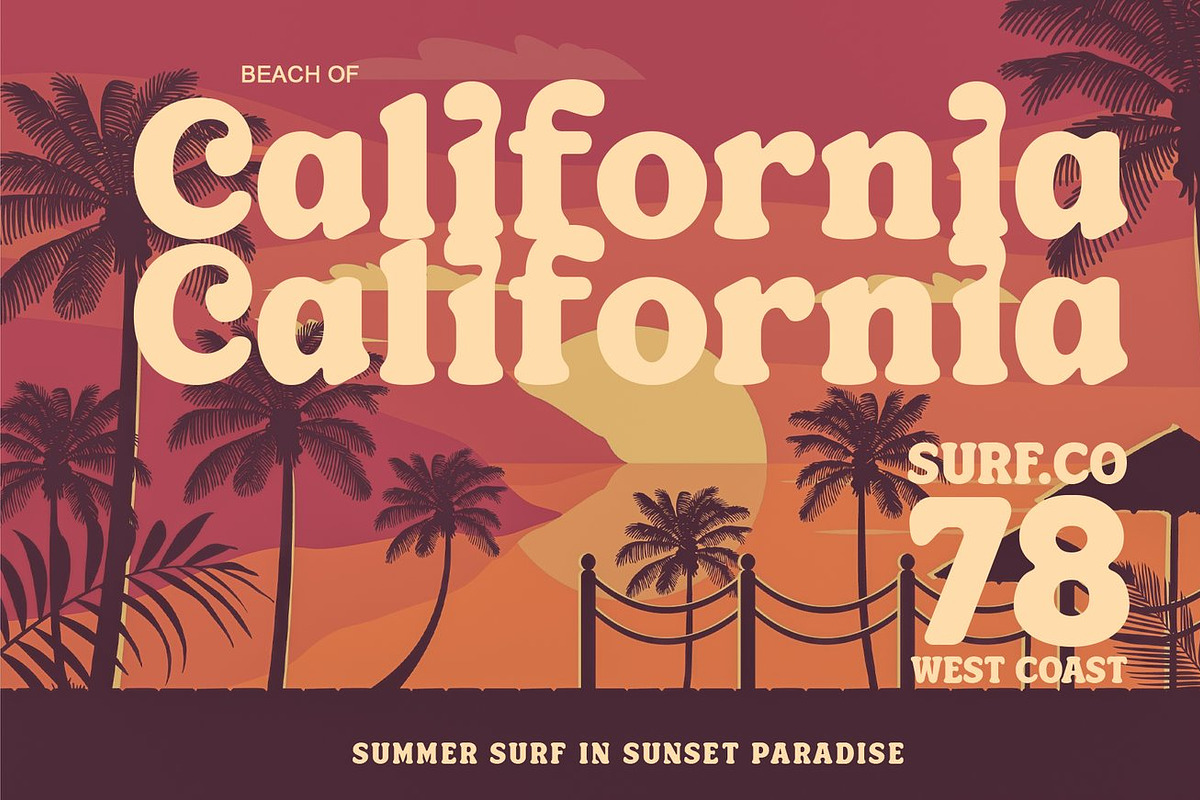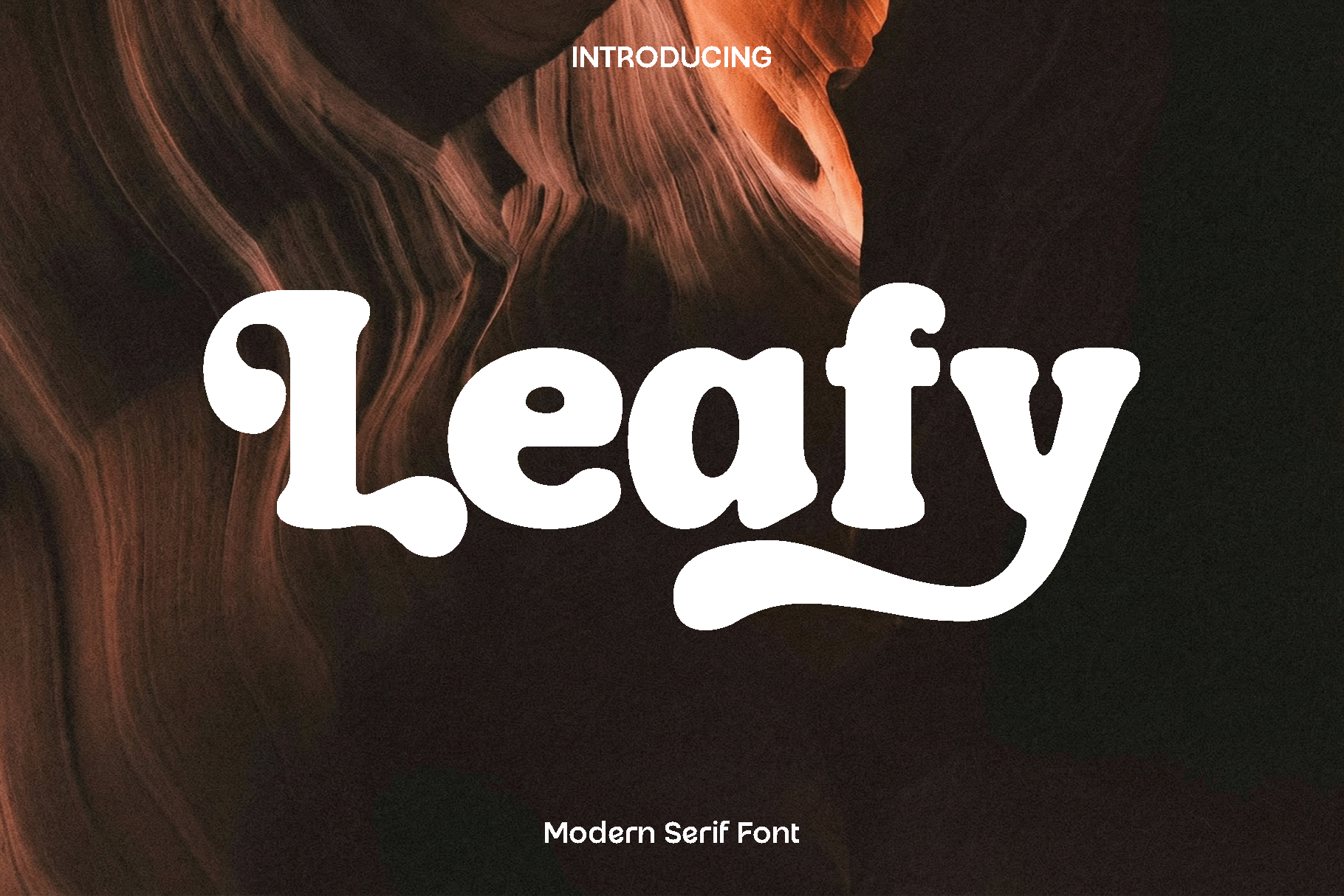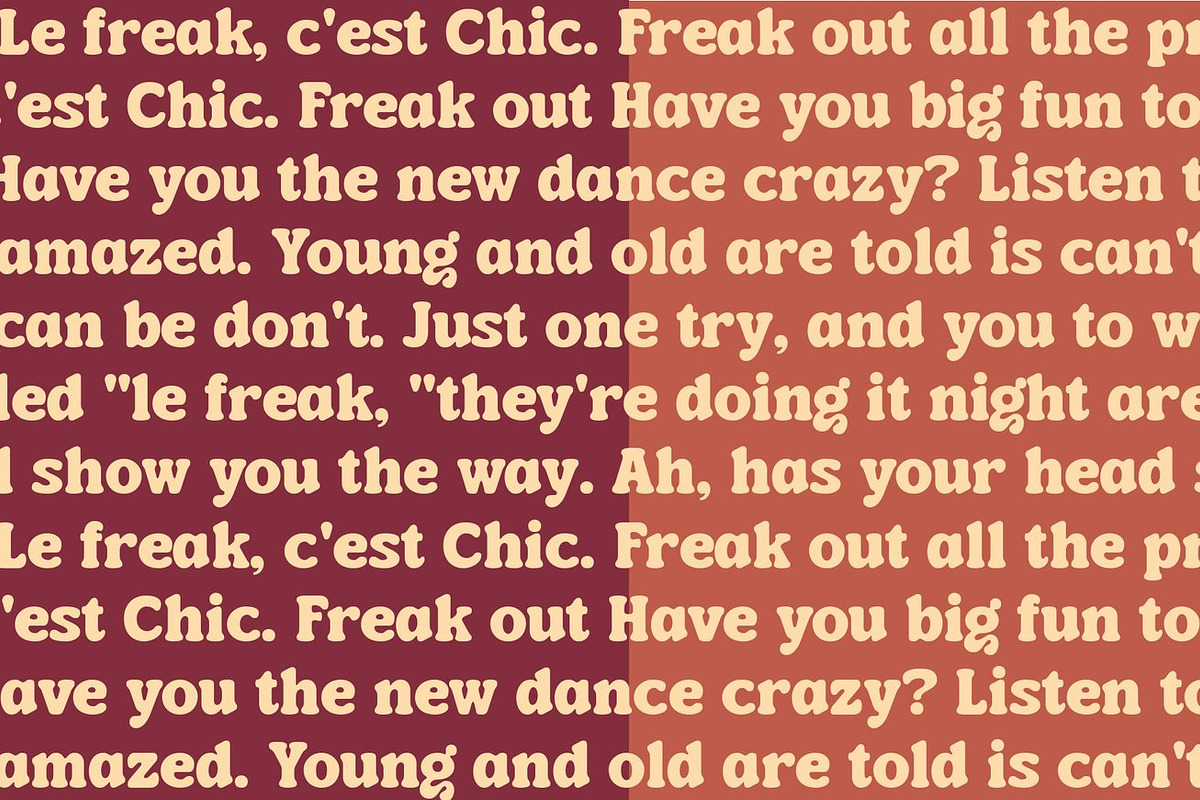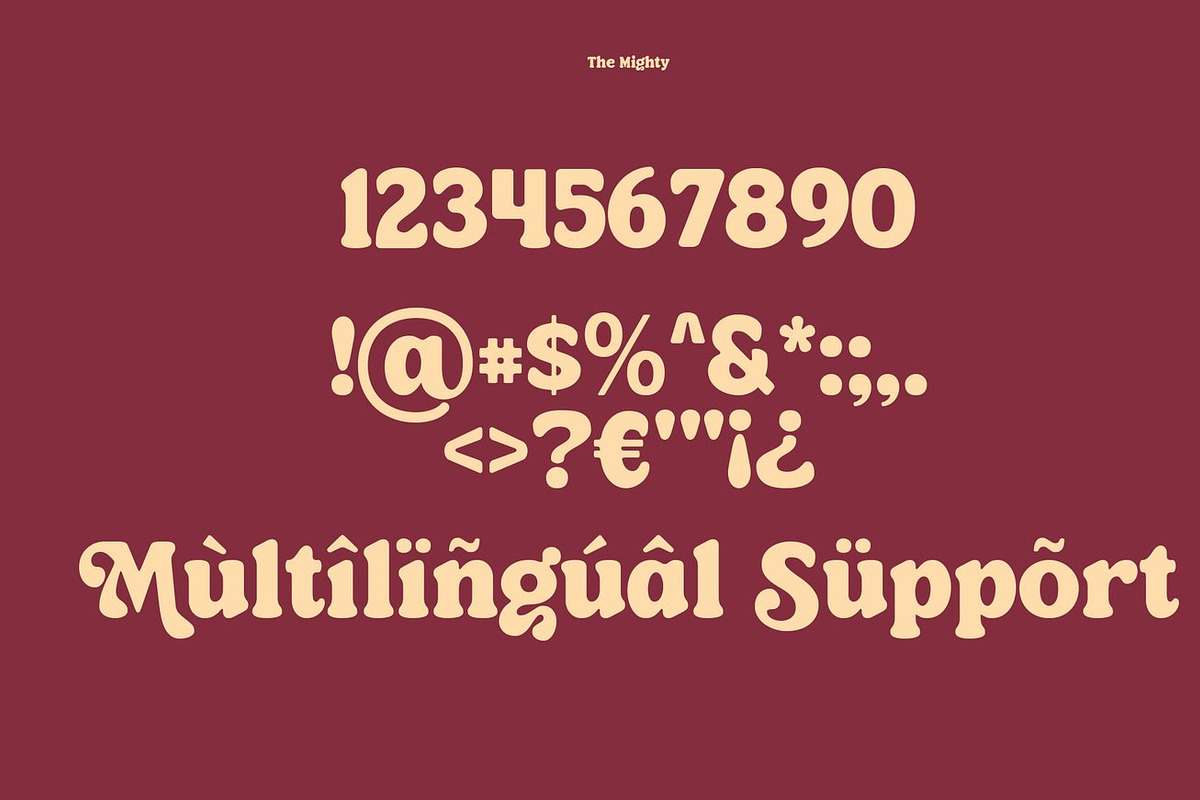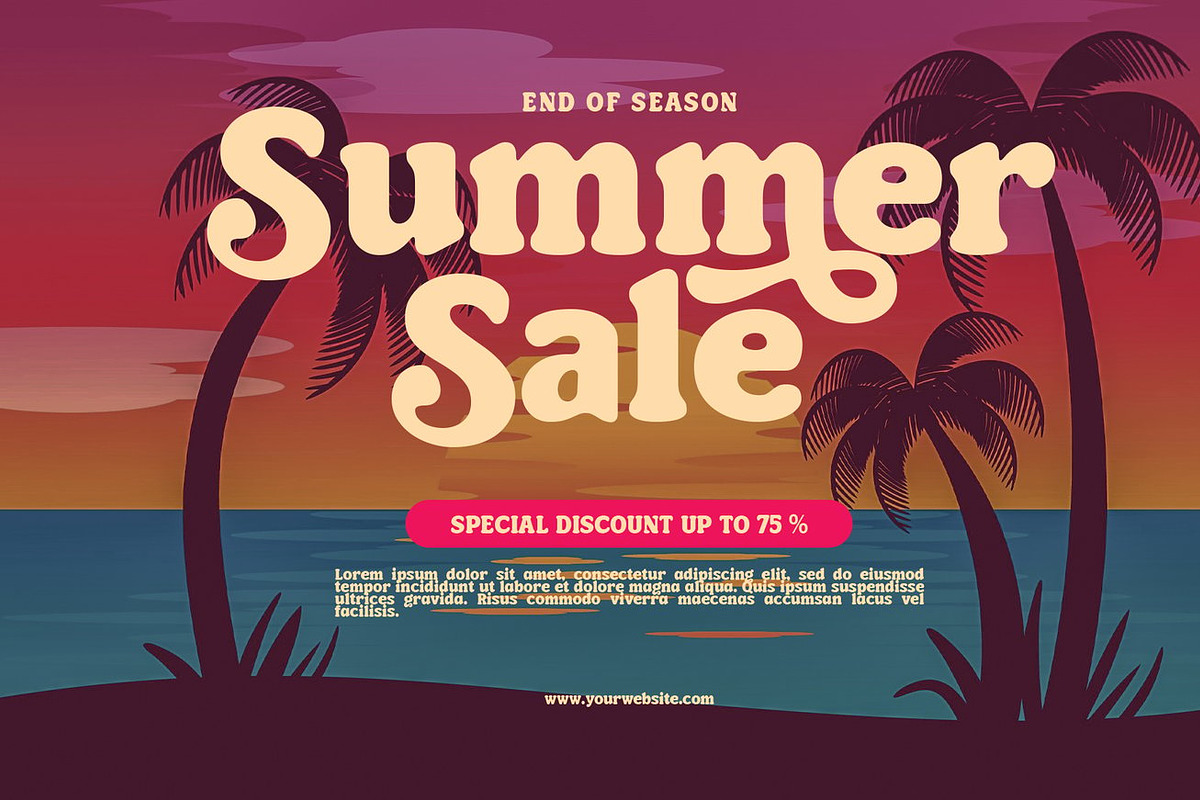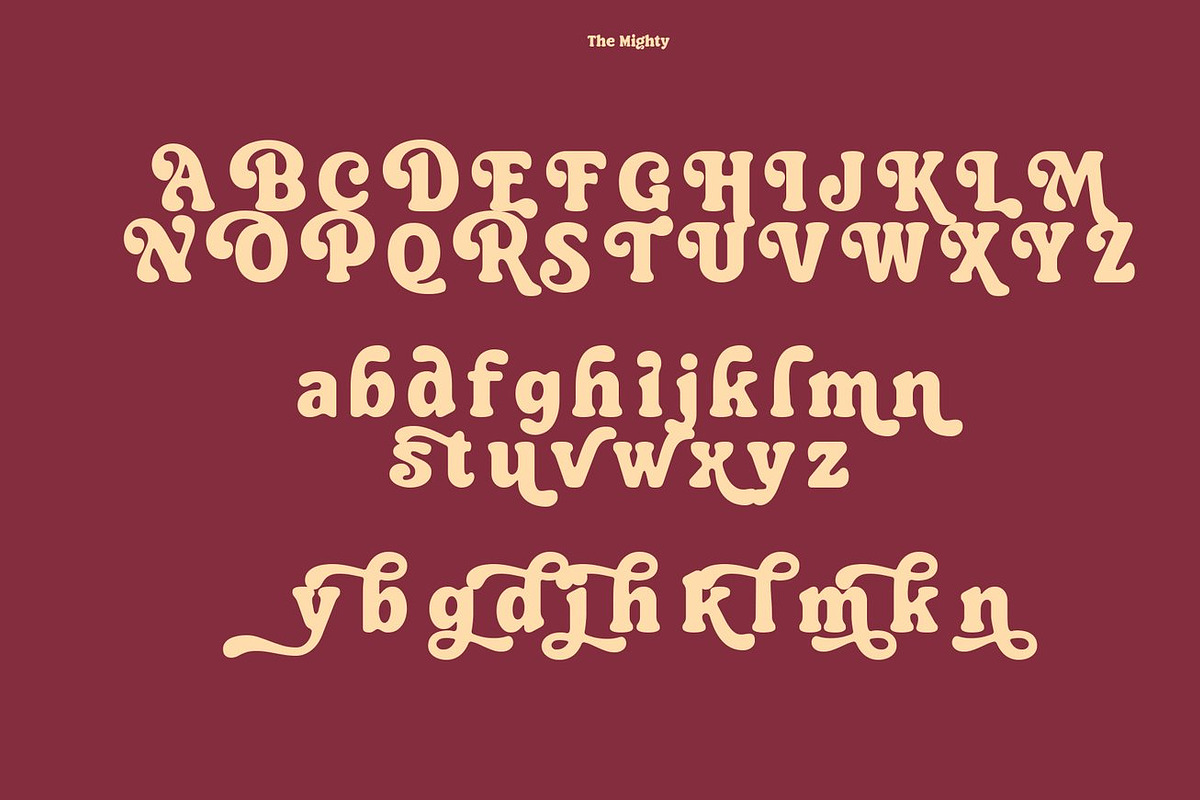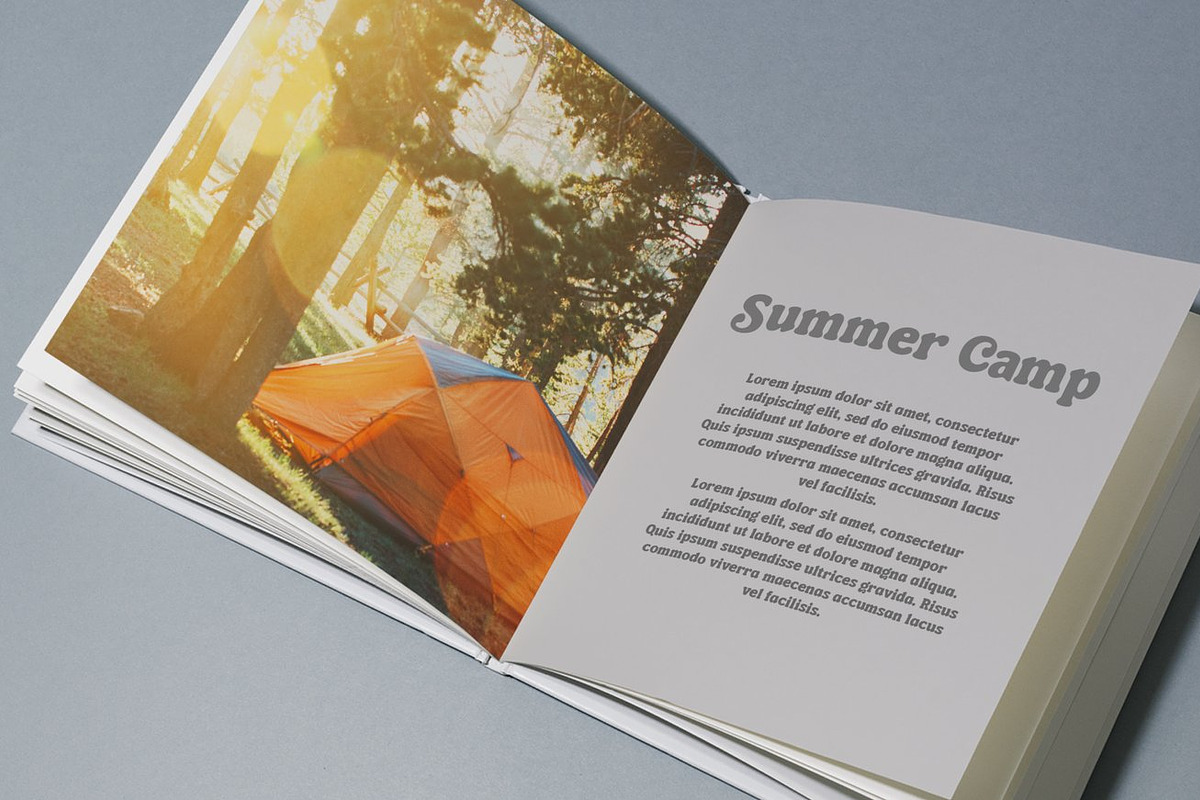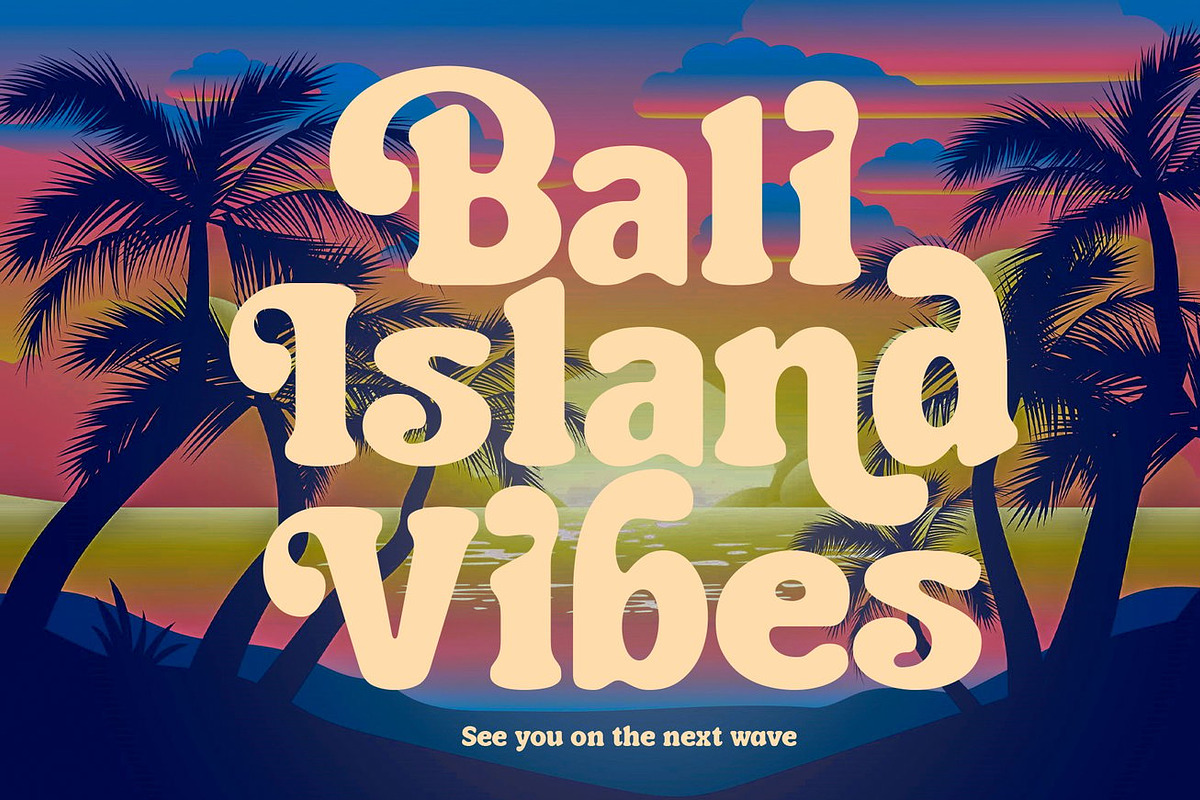
Leafy Serif Font
Leafy is a graceful display font inspired by the organic beauty of nature and the calm rhythm of flowing shapes. Designed with soft curves and balanced proportions, Leafy brings a fresh, friendly, and elegant personality to your typography. Its natural feel makes every word look warm and inviting, giving your designs a gentle yet distinctive presence that stands out without feeling overwhelming.
This font shines in creative projects that call for charm and visual appeal. Leafy works beautifully for books, magazines, logos, branding, photography watermarks, inspirational quotes, blog headers, posters, and advertising materials. Whether used in print or digital formats, Leafy adds a sense of creativity and softness that enhances the emotional connection of your design.
Leafy feels artistic, modern, and approachable. Its versatile style allows it to blend effortlessly into both minimal layouts and expressive compositions. Designers who want to add a natural touch with an elegant twist will find Leafy a reliable choice for creating memorable and stylish visuals.
Leafy Font Features:
• Uppercase characters
• Lowercase characters
• Numerals
• Functional punctuation and symbols
• Multilingual support